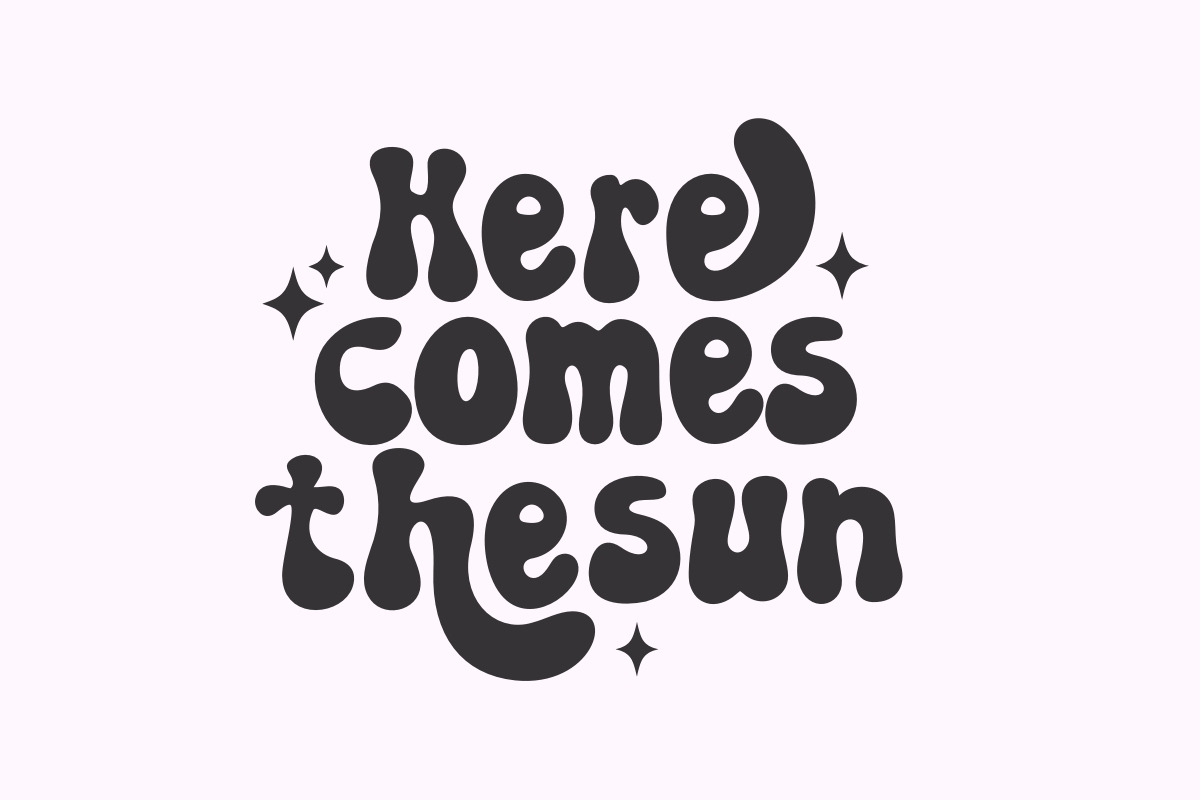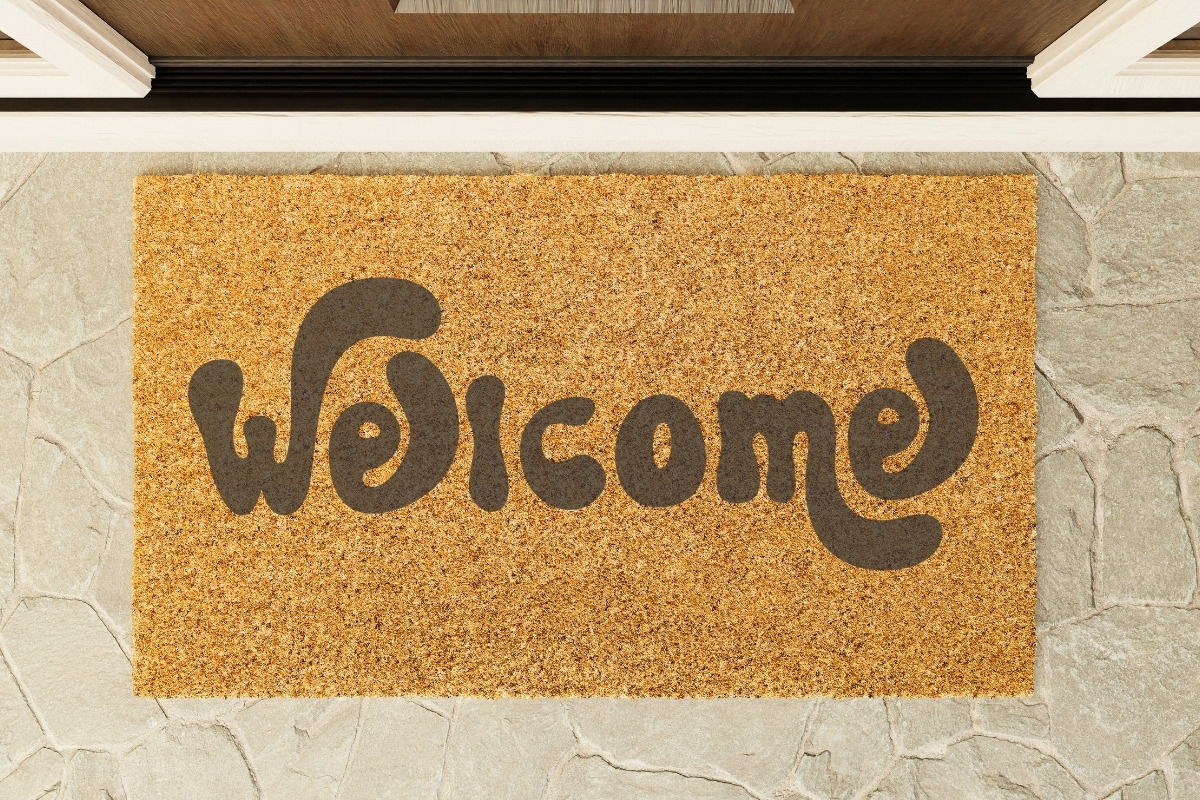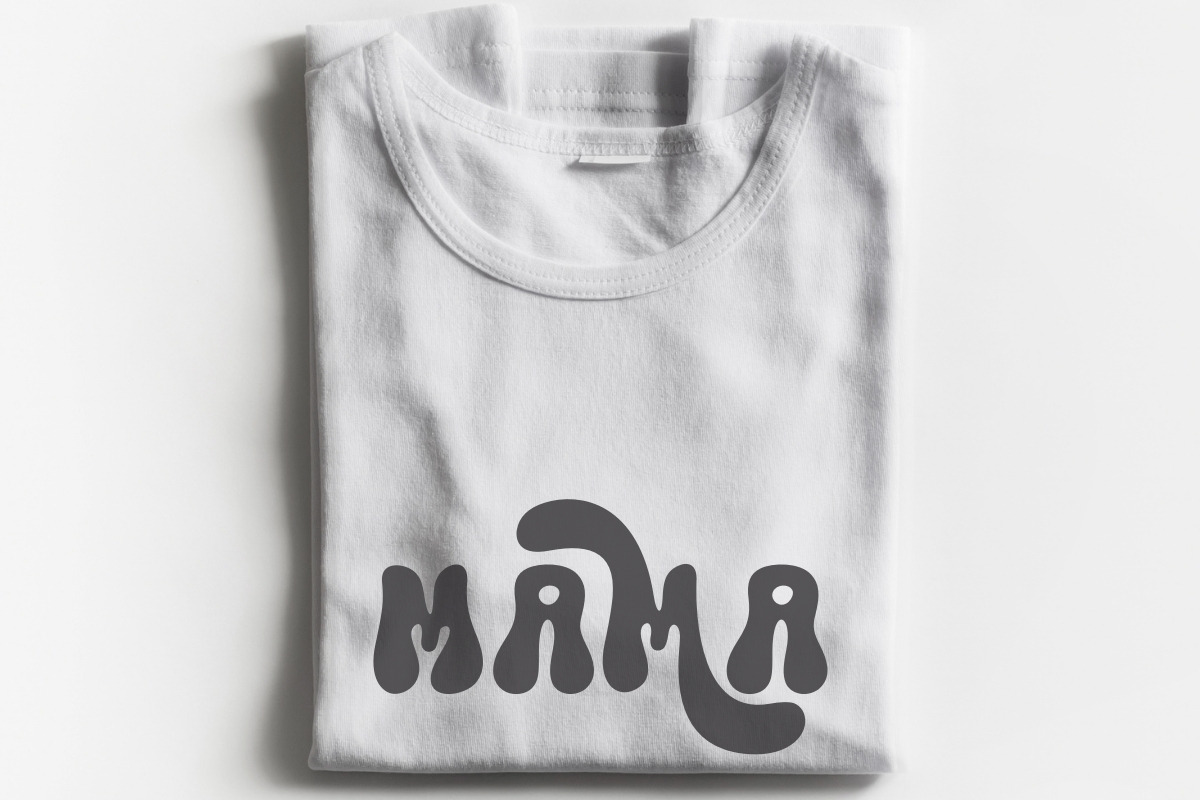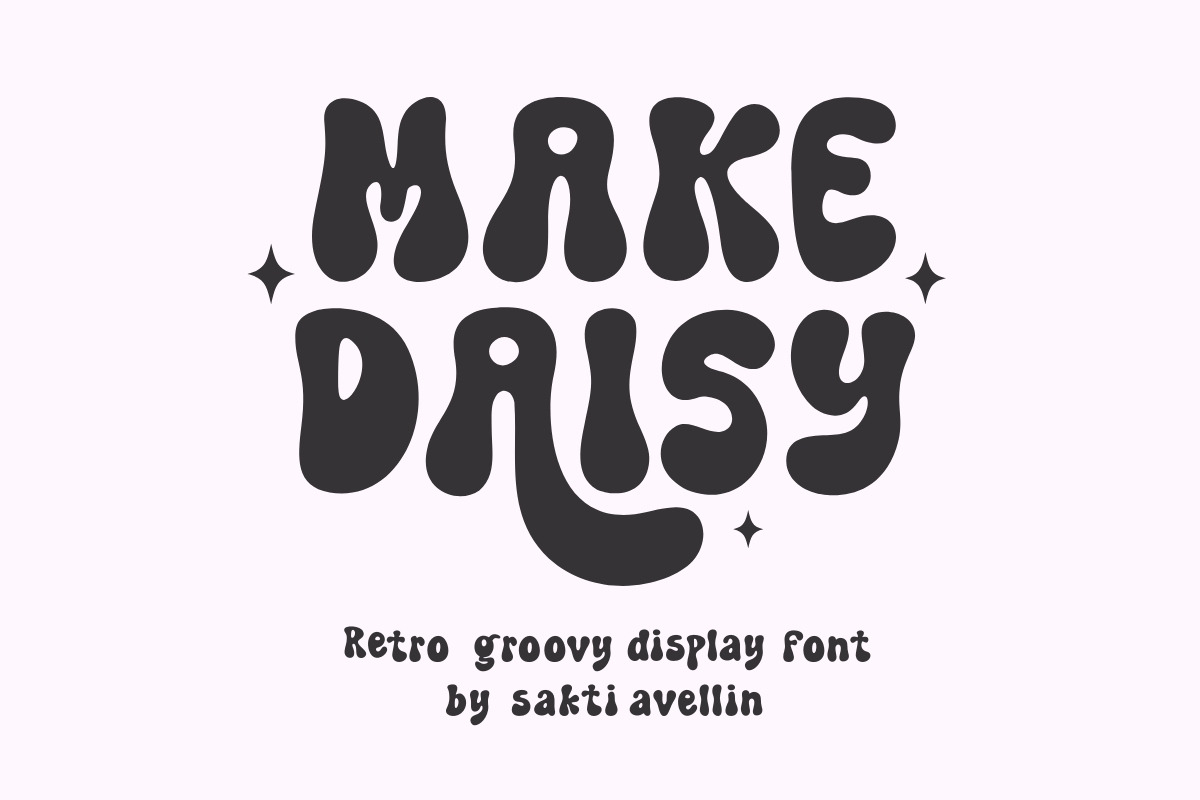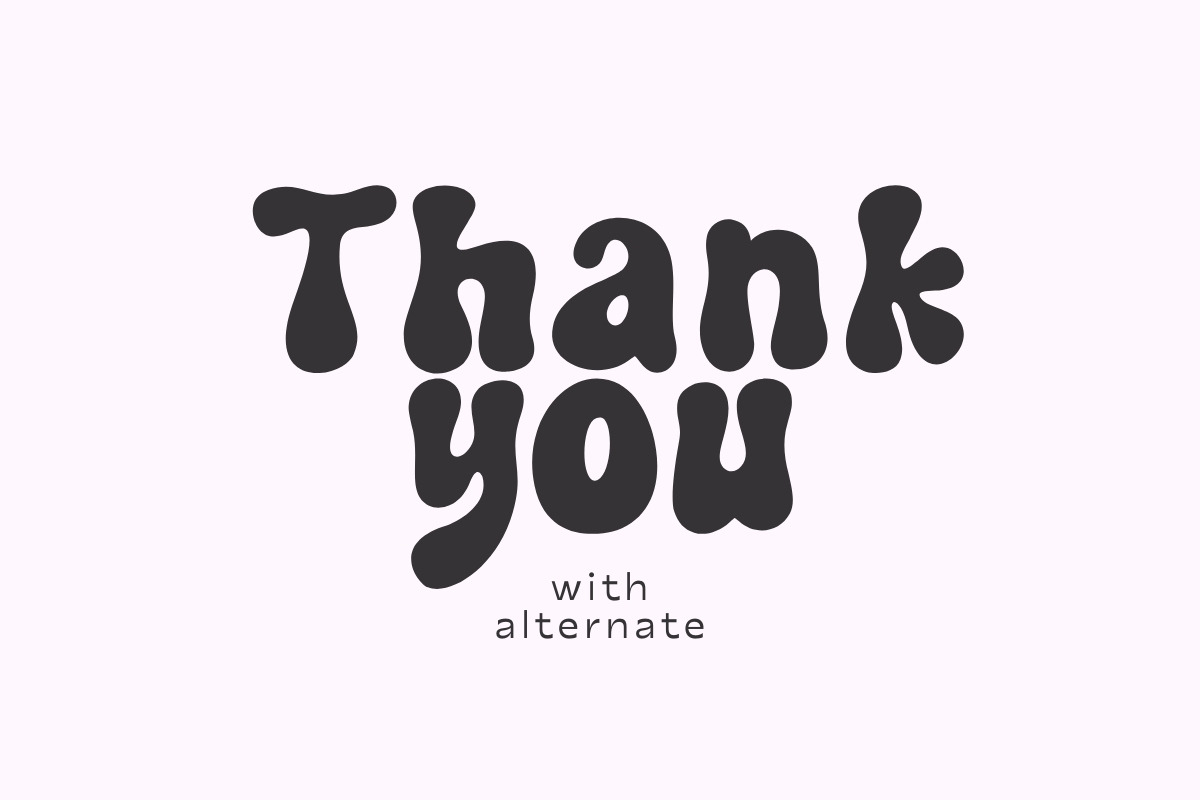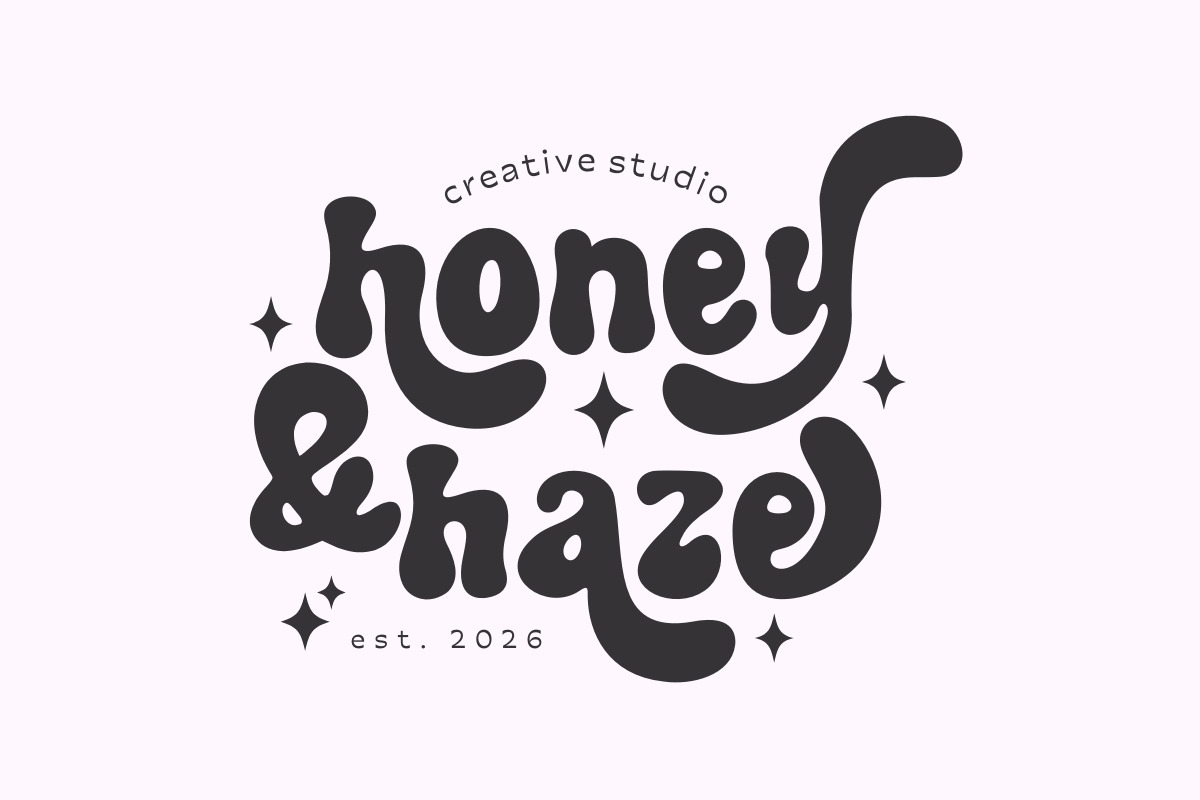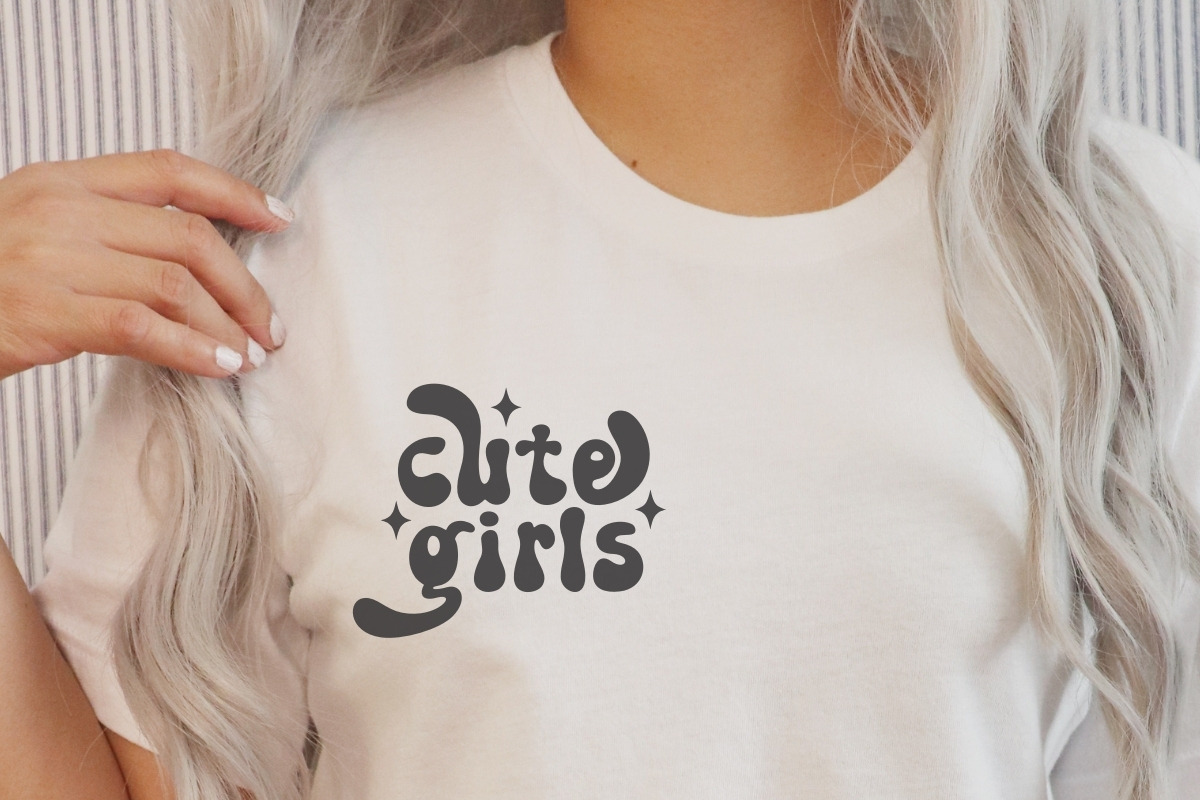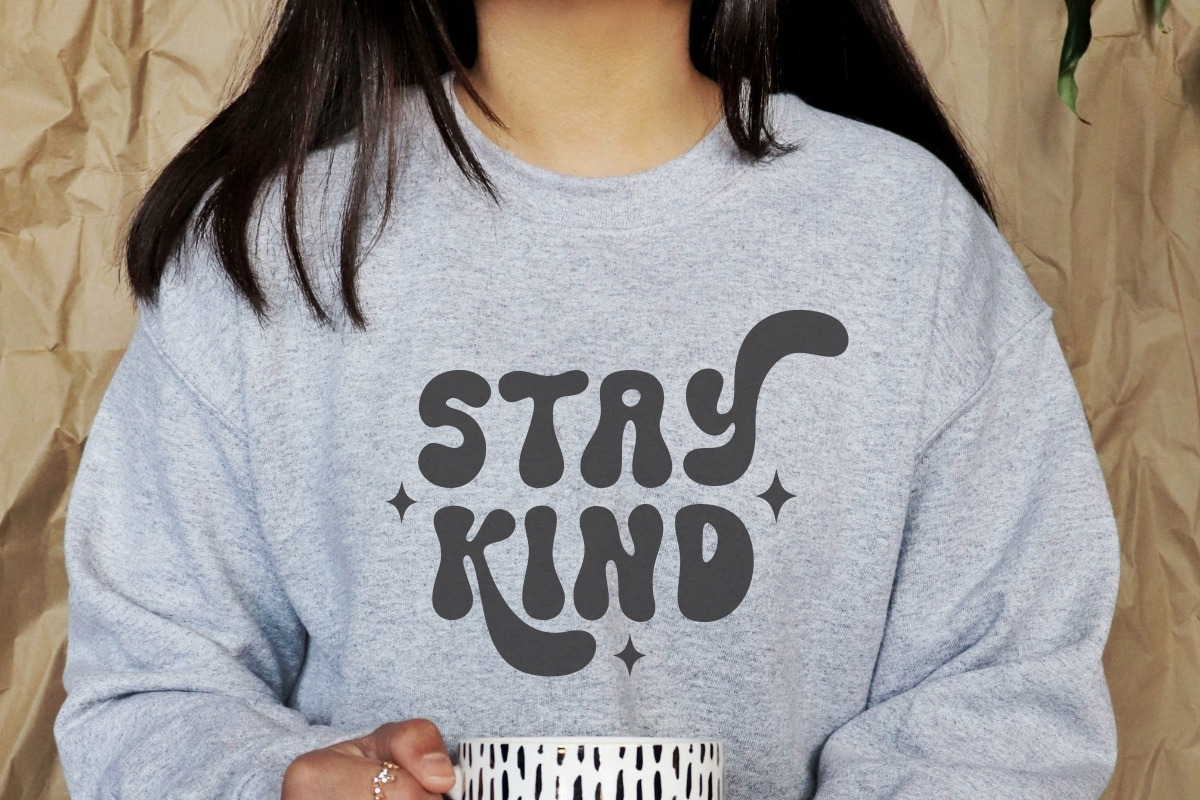
Make Daisy - Retro Groovy Font
Make Daisy is a vibrant, bold, and high-impact retro groovy display font designed to bring a playful 1970s energy to your creative work. This bubbly typeface features thick, rounded letterforms with a rhythmic and soulful bounce, making it an essential choice for floral branding, groovy t-shirt prints, retro stickers, and summer-themed headlines. Its unique and chunky silhouette ensures it stands out in any design, perfect for creators seeking a mix of nostalgic hippie charm and modern aesthetic funk. Spread joy and creativity in every project with the cheerful spirit of Make Daisy!